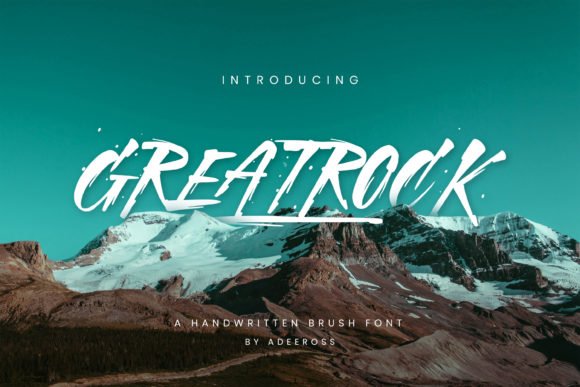
Introduction to Greatrock Font
Greatrock is a cool, bold, rough textured display font.
Add it to each of your street art or urban design, and you will love the outcome .
Key Features of Greatrock Font
Why Choose Greatrock Font?